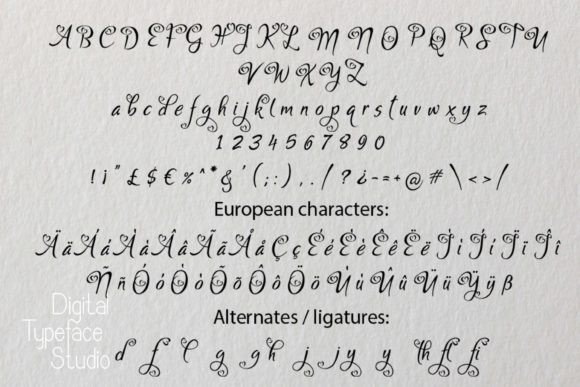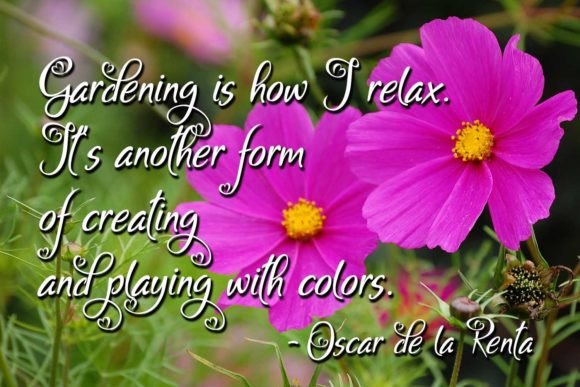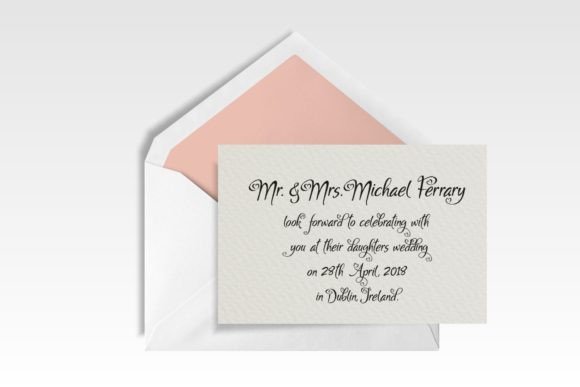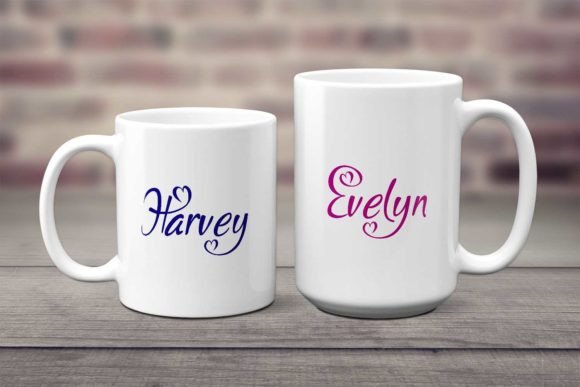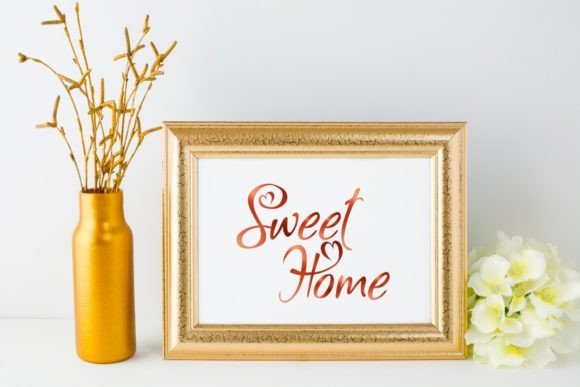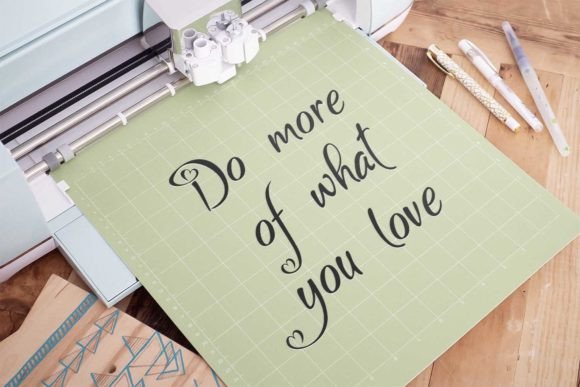
Introducing Bigdey Font: A Beautiful and Romantic Script for Your Designs
Are you looking for a font that adds a touch of elegance and romance to your designs? Look no further than Bigdey Font. This stunning script font is perfect for designers and crafters who want to create beautiful and eye-catching projects. With its heart flourishes and curved styling, Bigdey Font is sure to make your designs stand out.
The Characteristics of Bigdey Font
Bigdey Font is a beautiful and romantic script, with heart flourishes and curved styling. This font dances with a ton of movement, and is sure to add some beauty to your designs and projects. The unique characteristics of Bigdey Font make it perfect for a variety of design applications, from wedding invitations and stationery to branding and advertising.
What Makes Bigdey Font Special?
So, what makes Bigdey Font so special? Here are just a few reasons why designers and crafters love this font:
- Unique and Elegant Design: Bigdey Font has a unique and elegant design that is sure to make your designs stand out. The heart flourishes and curved styling give this font a romantic and feminine touch.
- Highly Versatile: Bigdey Font is highly versatile and can be used for a variety of design applications, from print to digital.
- Easy to Read: Despite its elegant and cursive design, Bigdey Font is easy to read, making it perfect for body text and headlines.
- Perfect for Branding and Advertising: Bigdey Font is perfect for branding and advertising projects, such as logos, business cards, and brochuses.
How to Use Bigdey Font in Your Designs
Bigdey Font is easy to use in your designs, and can be applied to a variety of projects. Here are a few ideas to get you started:
- Wedding Invitations and Stationery: Bigdey Font is perfect for wedding invitations, stationery, and other paper goods.
- Branding and Advertising: Use Bigdey Font for logos, business cards, brochuses, and other branding and advertising materials.
- Digital Designs: Bigdey Font can be used in digital designs, such as social media graphics, blog posts, and website headers.
- Crafting and Scrapbooking: Bigdey Font is also perfect for crafting and scrapbooking projects, such as journal cards, tags, and other embellishments.
Tips for Getting the Most Out of Bigdey Font
Here are a few tips for getting the most out of Bigdey Font:
- Experiment with Different Sizes and Colors: Bigdey Font looks great in a variety of sizes and colors, so don’t be afraid to experiment and find the perfect combination for your design.
- Pair with Other Fonts: Bigdey Font pairs well with other fonts, such as sans-serif fonts and script fonts. Try pairing it with a complementary font to add contrast and interest to your design.
- Use for Headlines and Titles: Bigdey Font is perfect for headlines and titles, where its elegant and cursive design can really shine.
In conclusion, Bigdey Font is a beautiful and romantic script font that is perfect for designers and crafters who want to add a touch of elegance and sophistication to their designs. With its unique and elegant design, Bigdey Font is sure to make your designs stand out. Whether you’re working on a wedding invitation, branding project, or digital design, Bigdey Font is a great choice.